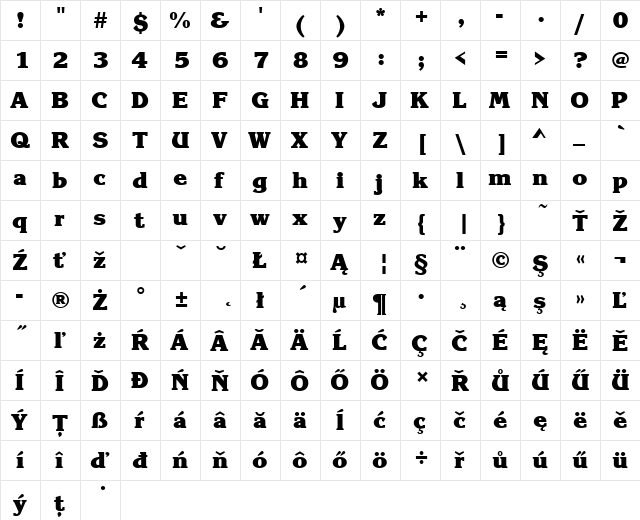
KorinnaItcTEEHea Regular
Design Context for KorinnaItcTEEHea Typeface
KorinnaItcTEEHea offers clean, dependable letterforms without strong stylistic allegiance, making it a practical choice for designers who need flexibility.
Pro Tip: Use KorinnaItcTEEHea in both headline and body roles to test its range before committing to a single application.